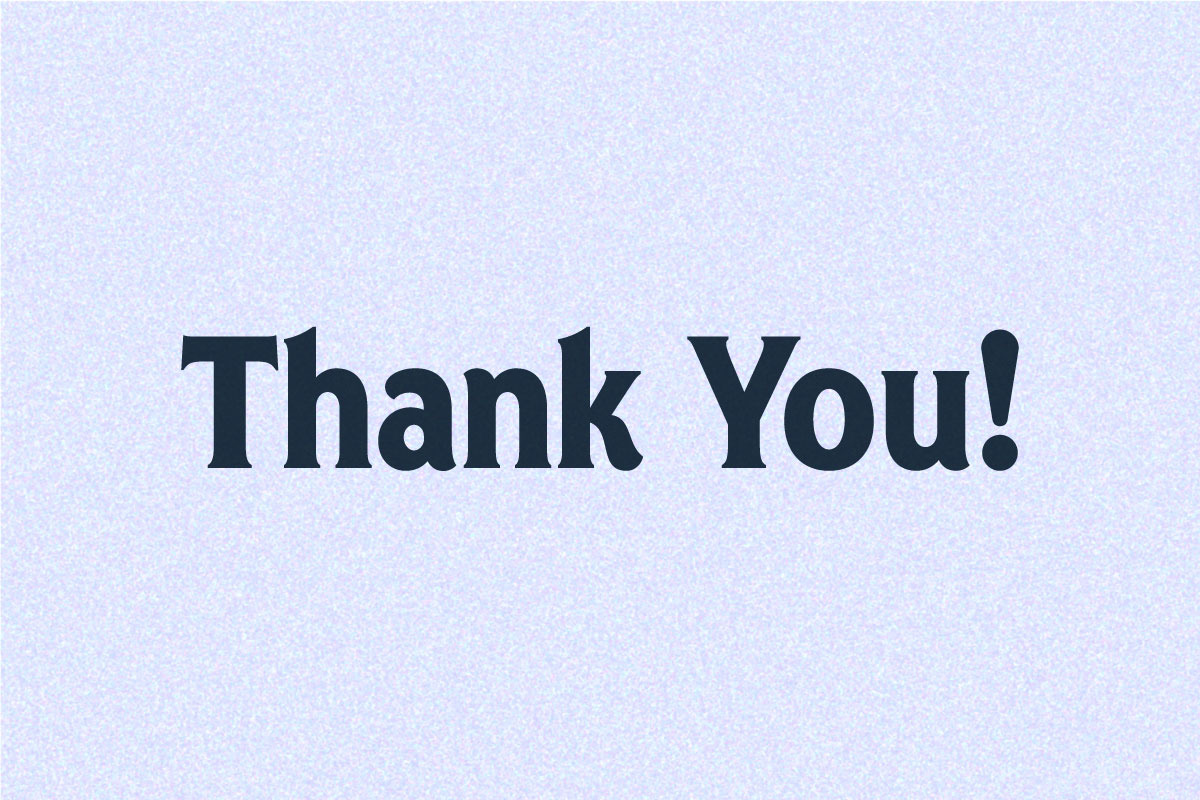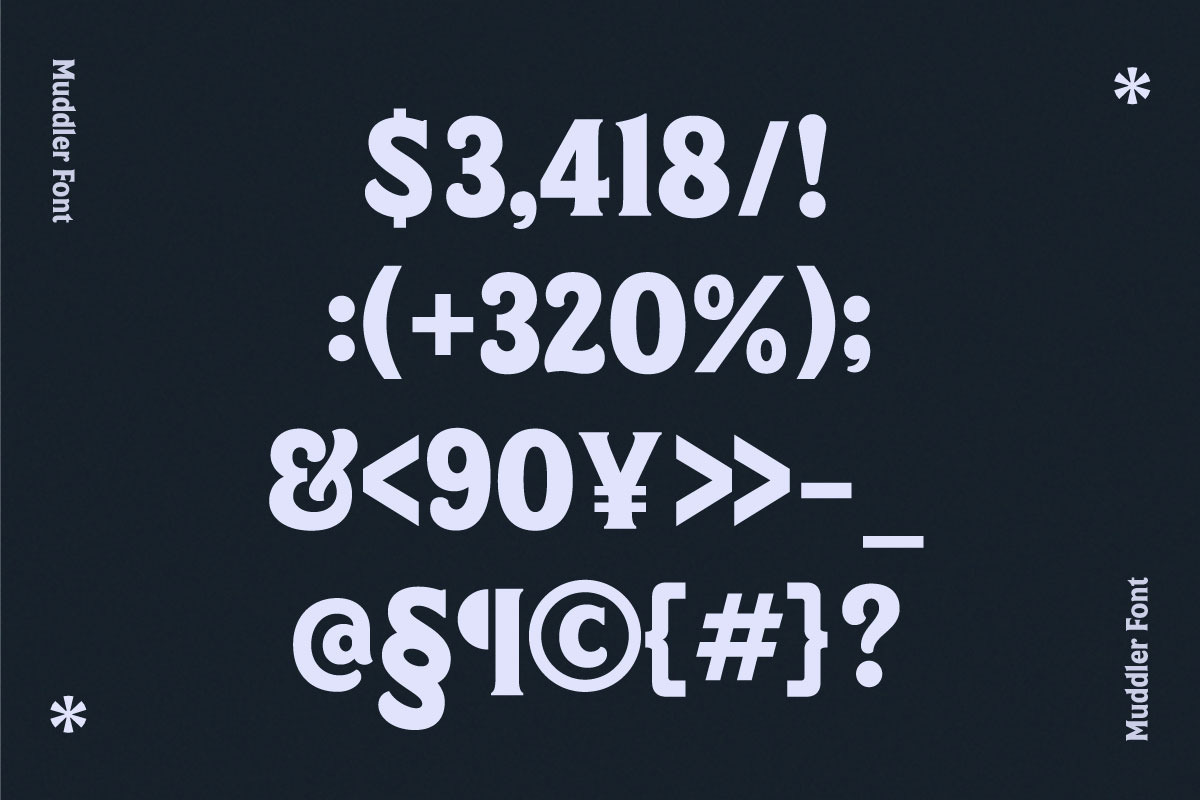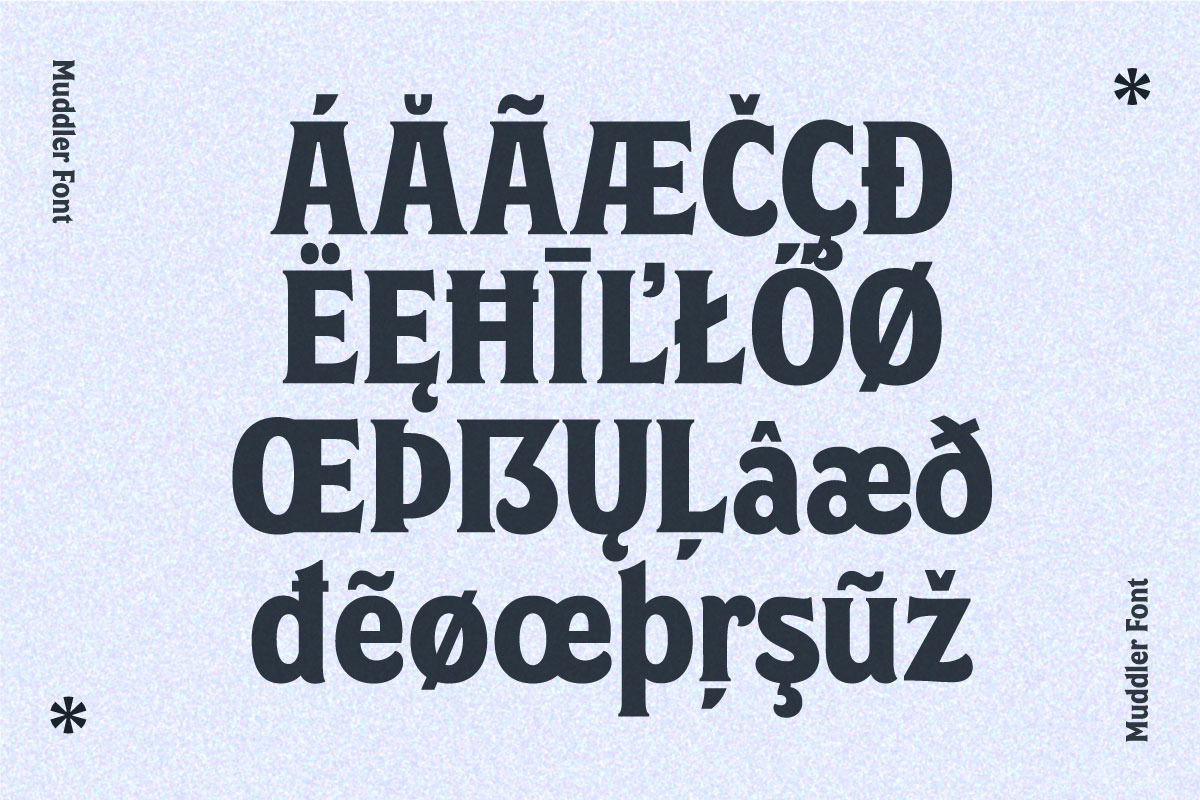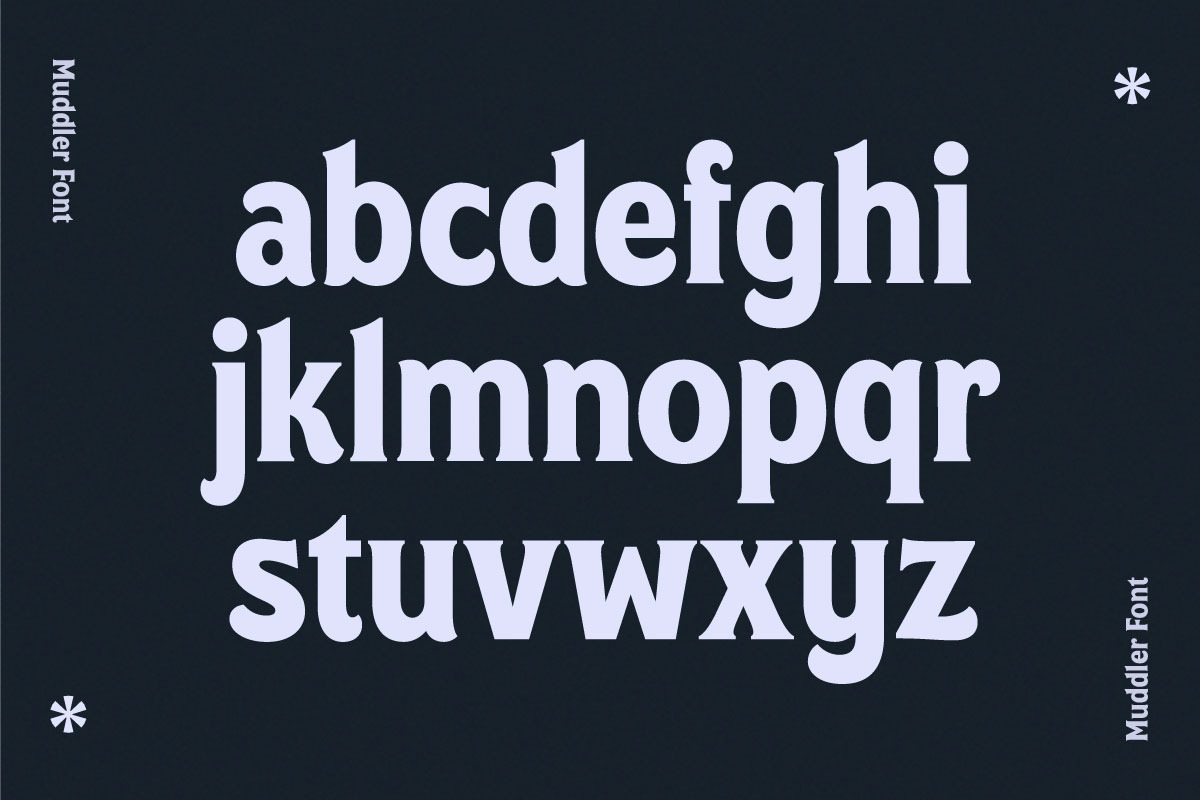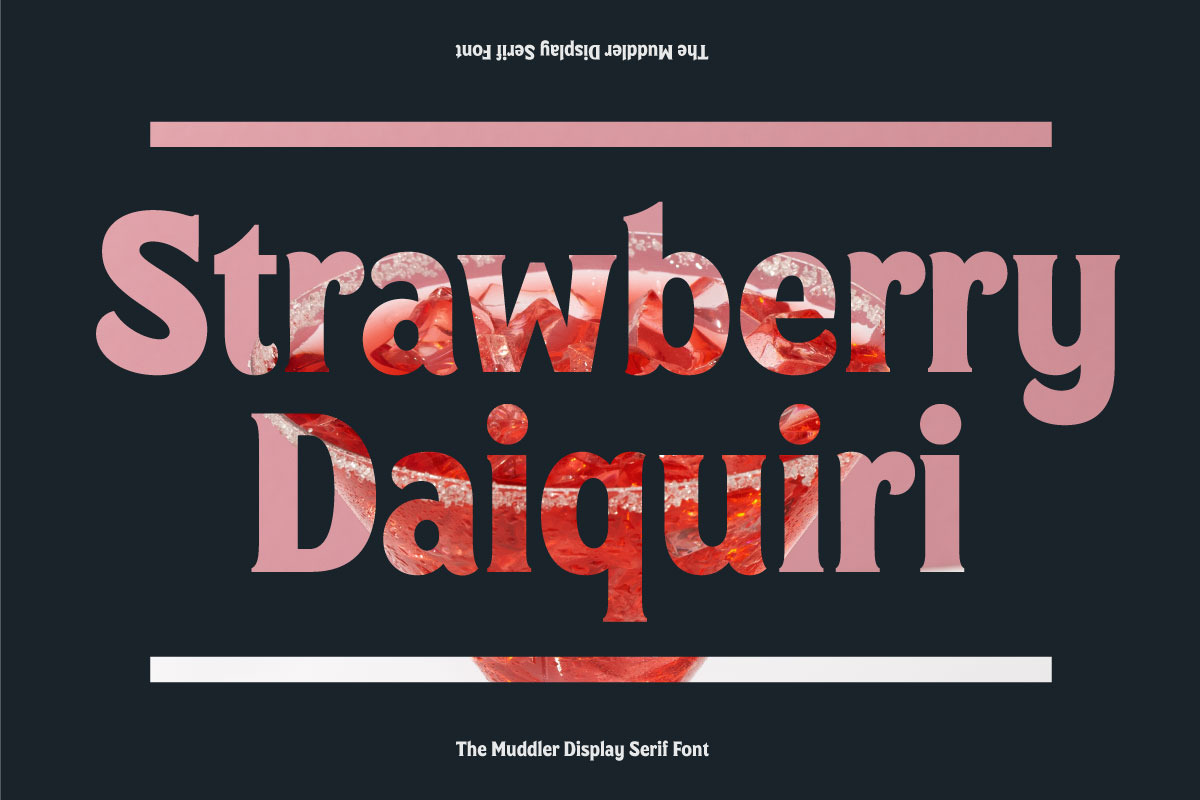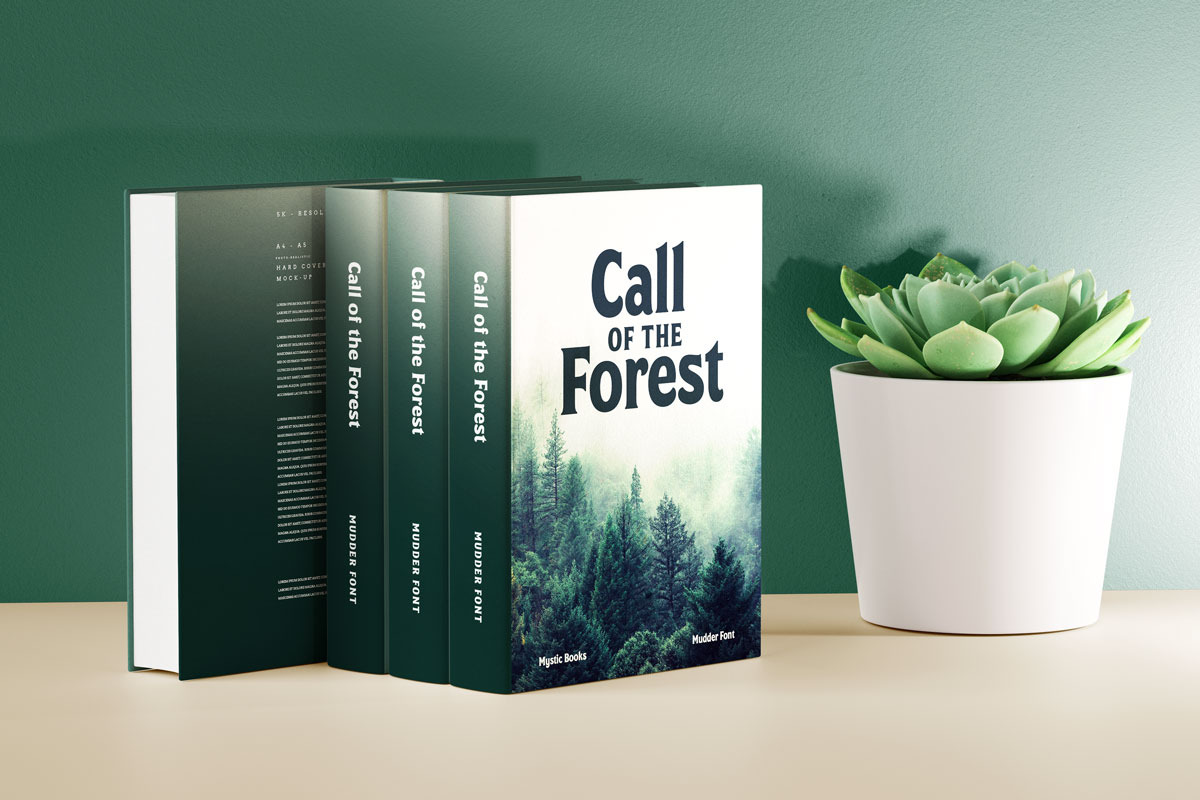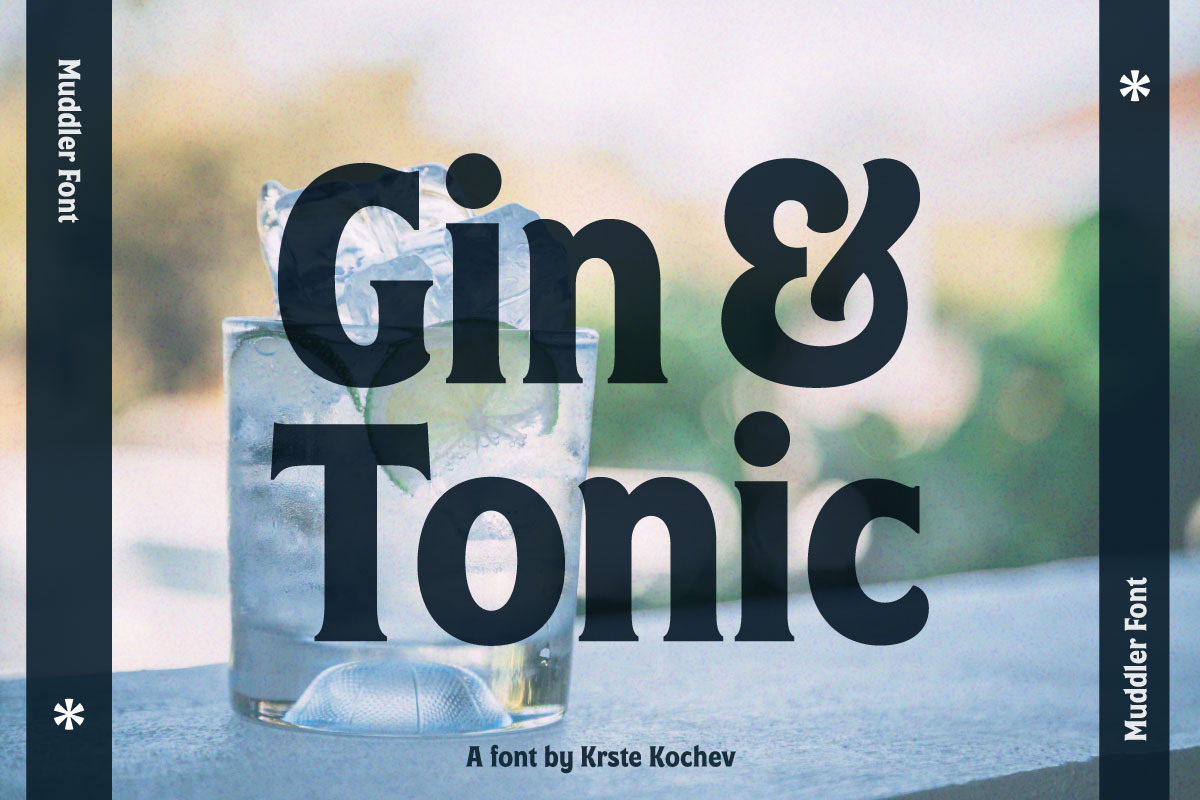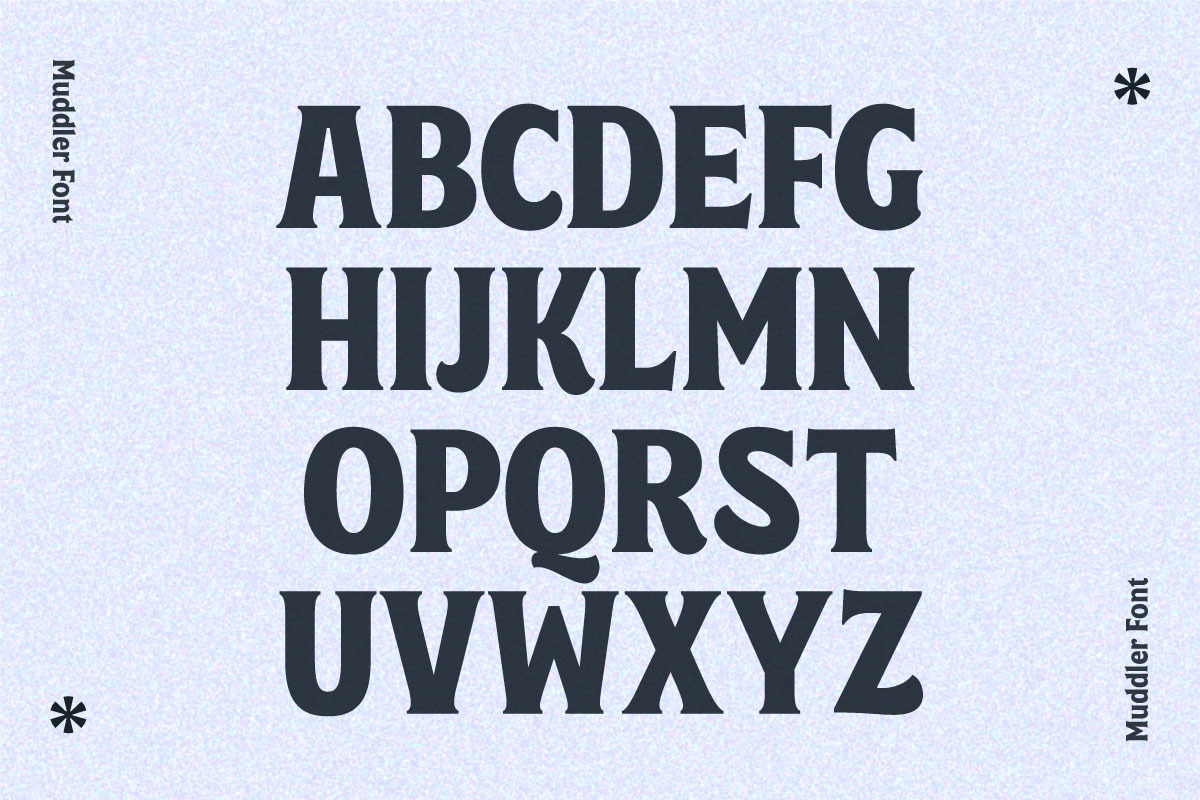
Muddler - Display Serif
Mudder Display Serif font is a unique blend of classic and contemporary design elements. It features elegant, curving serifs that harken back to traditional typefaces, but with a modern twist that adds a touch of sophistication and flair. This font is ideal for use in large headlines, posters, book covers and other eye-catching designs that require a bit of personality and charm. Its retro-modern style can help create a visually striking and memorable impression for any project.